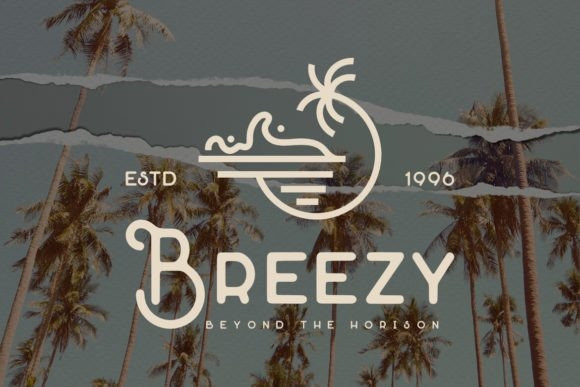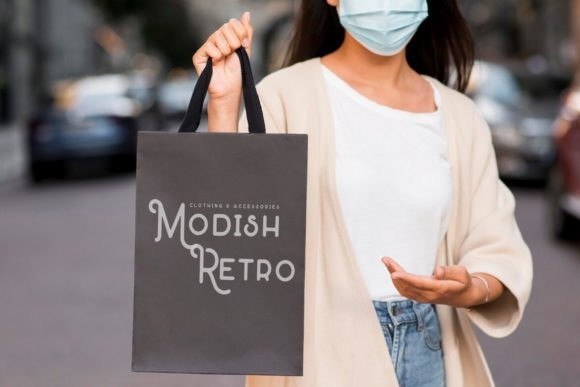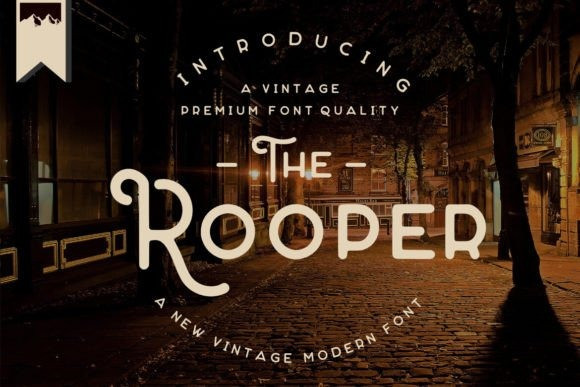
The Rooper Font
The Rooper Font is made with high premium quality level which you can use as flyers, quotes, posters, banners, packaging, merchandise, logotypes, and much more.
Classification: Elegant / Luxury Fonts